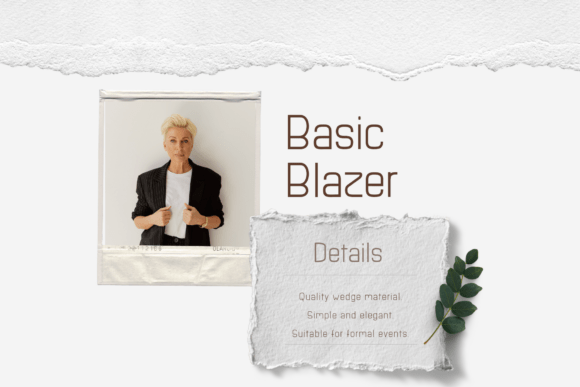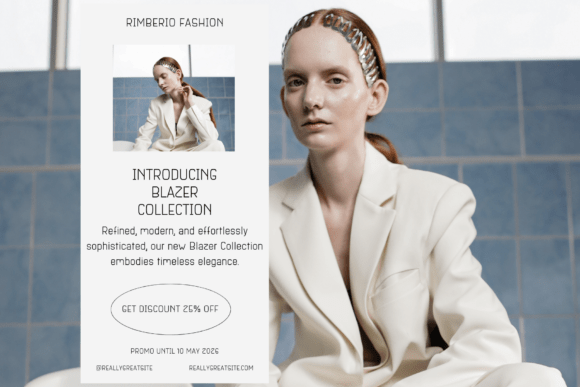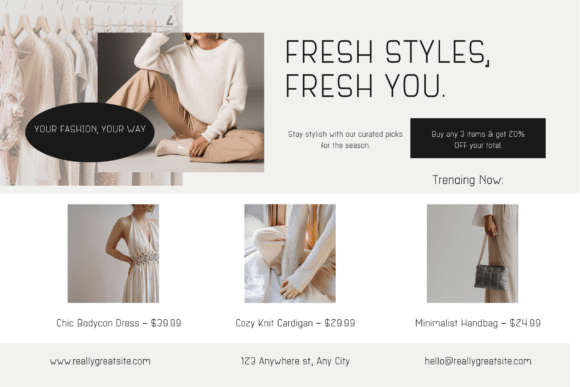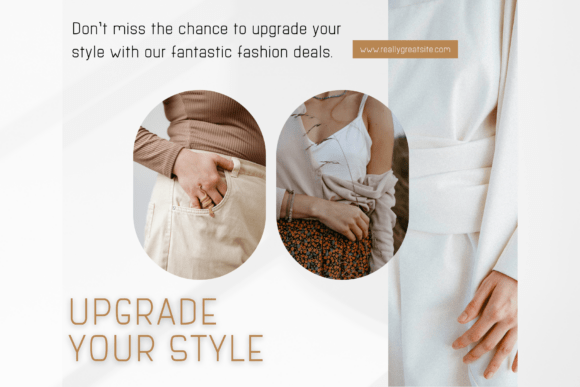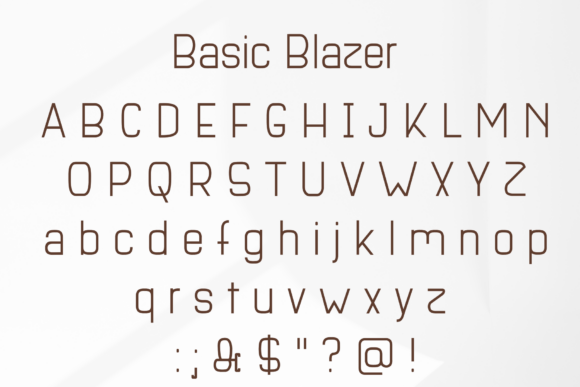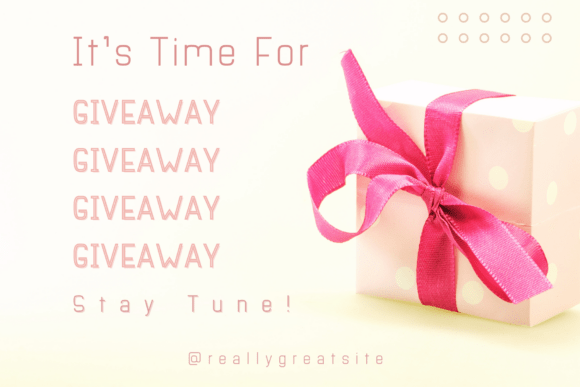
I still remember the frustration of working on a project, hours spent crafting the perfect design, only to be held back by one thing: the font. It was 2019, and I was working on a branding project for a tech startup. The client wanted a font that was modern, clean, and friendly, yet professional. I scoured the internet, tried countless fonts, but nothing seemed to fit the bill. That was until I stumbled upon the Basic Blazer font. It was love at first sight! ✨
Basic Blazer: The Perfect Blend of Style and Versatility
Basic Blazer is a clean, modern sans serif font with a minimal geometric style. Its rounded edges and evenly spaced characters give it a friendly yet professional appearance, making it perfect for a wide range of design projects, including branding, tech-related projects, packaging, posters, and editorial design.
What I Love About Basic Blazer
- ✅ Clean and Modern Design: Basic Blazer has a sleek, contemporary look that instantly elevates any design.
- ✨ Versatility: Its balanced design makes it suitable for both headlines and body text, ensuring clarity while maintaining visual charm.
- 💡 Legibility: The font’s evenly spaced characters and rounded edges make it easy to read, even at smaller sizes.
- 🎨 Customization Options: Basic Blazer supports OpenType features, glyphs, and stylistic alternates, giving designers plenty of creative freedom.
While Basic Blazer is an excellent font, it’s not without its quirks. For instance:
- ⚠️ Limited Serif Options: As a sans serif font, Basic Blazer might not be the best choice for projects requiring a traditional serif look.
- 🤔 Glyph Limitations: While the font has a wide range of glyphs, some designers might find the selection limited for very specific design needs.
The Designer Inspiration Behind Basic Blazer
Basic Blazer was designed with the modern designer in mind. Its creator aimed to craft a font that was both clean and versatile, suitable for a wide range of design projects. The design process involved experimenting with different geometric shapes and spacing to achieve the perfect balance between simplicity and uniqueness.
| What makes Basic Blazer suitable for tech-related projects? | Its clean, modern design and geometric style make it perfect for tech branding, giving projects a sleek and professional look. |
| Can I use Basic Blazer for body text? | Yes, Basic Blazer is legible and clear, making it suitable for body text. Its even spacing and rounded edges ensure readability. |
| Does Basic Blazer support OpenType features? | Yes, Basic Blazer supports OpenType features, glyphs, and stylistic alternates, offering designers creative flexibility. |